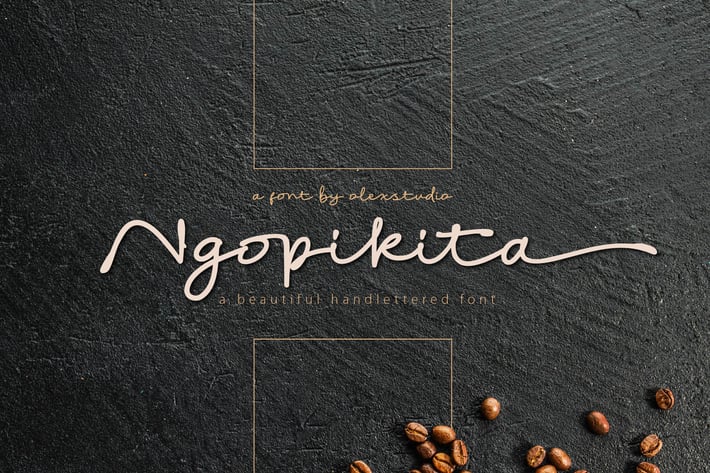
Ngopikita - Handlettered font
Olexstudio
Ngopikita - Handlettered font will look gorgeous on all your designs,
invitation, poster design, book design, branding materials, logo's, t-shirt and all project design other.
Ngopikita - Handlettered font contains standard characters, Lowercase, alternates, Uppercase,